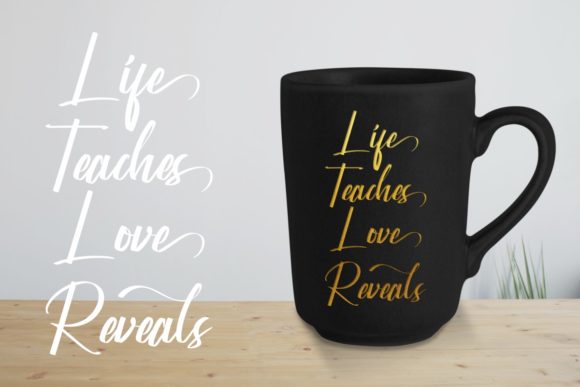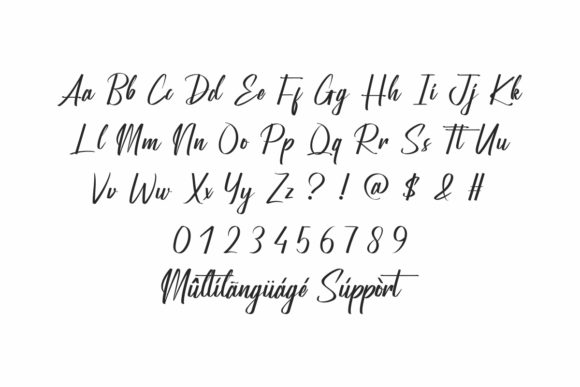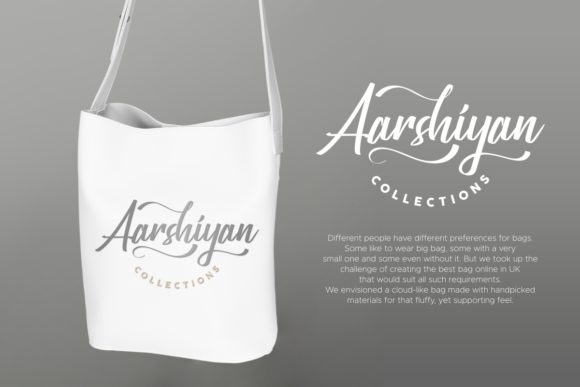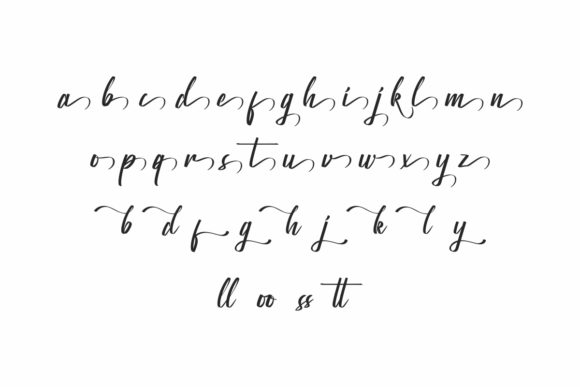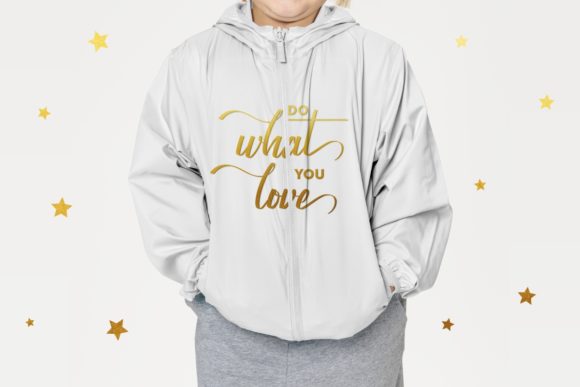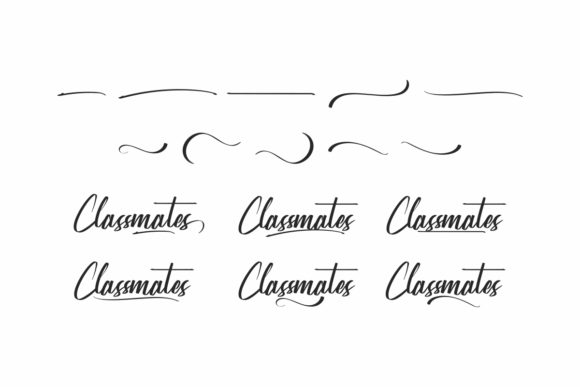
The Ultimate Guide to Classmates Font: A Fun and Versatile Handwritten Font
I’ll never forget the moment I stumbled upon the perfect font for a project I was working on. I had been searching for what felt like hours, trying out font after font, but nothing seemed quite right. That was until I discovered Classmates, a casual and fun handwritten font that completely transformed my design. In this article, I’ll share my love for Classmates, its features, and how to make the most of it in your designs.
My Love Affair with Classmates
As a designer, I’m always on the lookout for fonts that can help me create stunning visuals. Classmates has quickly become one of my go-to fonts, and for good reason. Here are just a few things I love about it:
- ✨ Incredibly versatile style that suits a wide range of projects
- 💫 Perfect for creating eye-catching headings, titles, and quotes
- 👍 Highly legible, even at smaller font sizes
The Honest Review: Not Perfect, But Close!
While Classmates is an amazing font, it’s not without its quirks. Here are a few things to keep in mind:
- 🤔 Limited availability of certain characters, such as accented letters
- ⚠️ May not be the best choice for body text or long-form content
The Designer Inspiration Behind Classmates
While I couldn’t find any information on the actual designer behind Classmates, I like to imagine that it was created by a designer who wanted to capture the essence of friendly, handwritten notes. Perhaps they drew inspiration from their own childhood notebooks or the quirky lettering on their favorite coffee shop’s menu board.
| Font Name | Classmates Font |
| Author | NihStudio |
| Is Classmates suitable for body text? | While Classmates is highly legible, it’s not recommended for long-form body text. Instead, use it for headings, titles, and short paragraphs. |